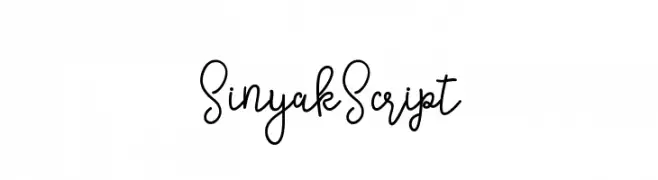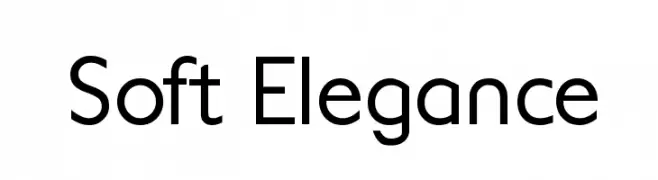
( Ferdiansyah - creativemarket.com/ijemrockart )
A cursive script font with elegant loops and swirls, perfect for sophisticated designs.
( Fikry Alif - fontbundles.net/admin/products.php )
A bold and italic script font with elegant, flowing cursive letters.
( Flamde Studio - Nur Solikh - creativemarket.com/flamde/ )
An elegant, flowing script font with ornate, cursive strokes.
( Fontsgood - Ade Meiada )
An elegant, flowing script font with a sophisticated, handwritten style.
( Gartype Studio )
A fluid and elegant script font with dynamic cursive letterforms.
( Genumano - Douglas Charles Cunha )
A modern sans-serif font with smooth curves and balanced structure.
( Graphix Line Studio )
A sophisticated script font with elegant, flowing cursive letters.
( Graphix Line Studio )
A graceful, handwritten script font with a flowing, elegant style.
( Great Studio - www.creativefabrica.com/designer/greatstudio/ )
An elegant script font with flowing, cursive letterforms and intricate swashes.
( Greatbleast Mark - www.creativefabrica.com/ref/205906/ )
A graceful script font with fluid, cursive strokes and elegant design.